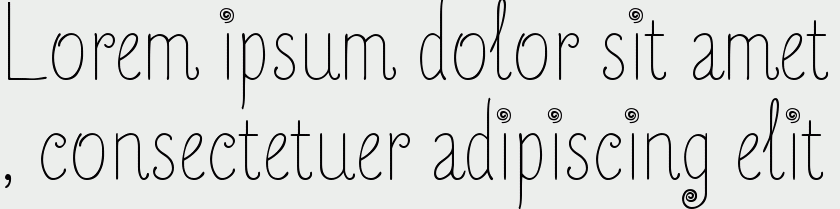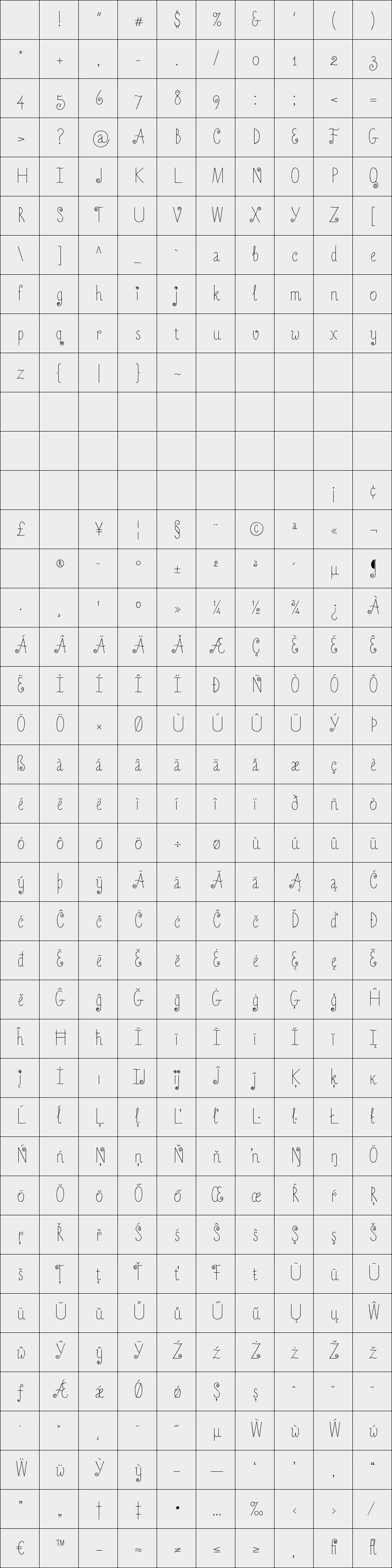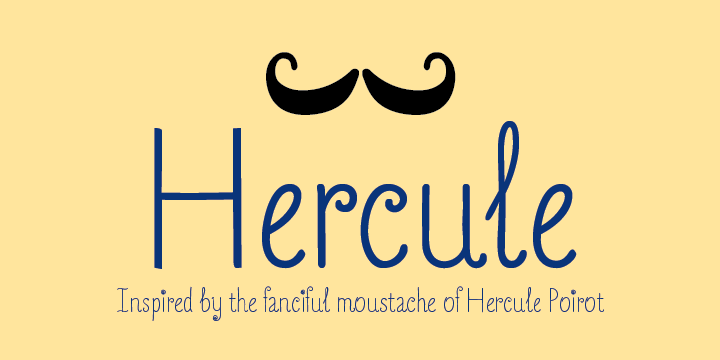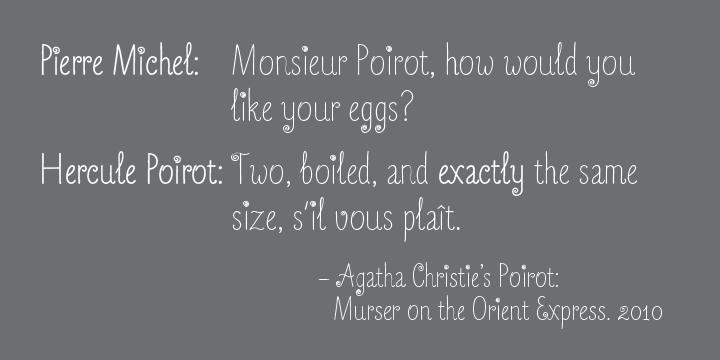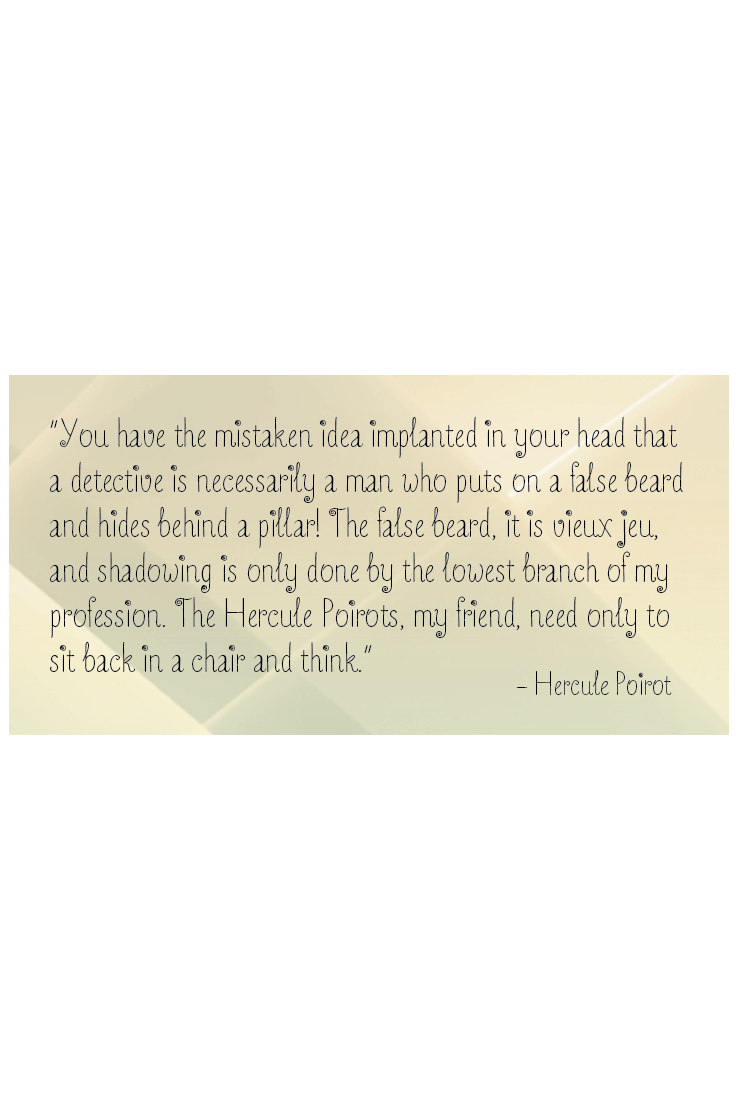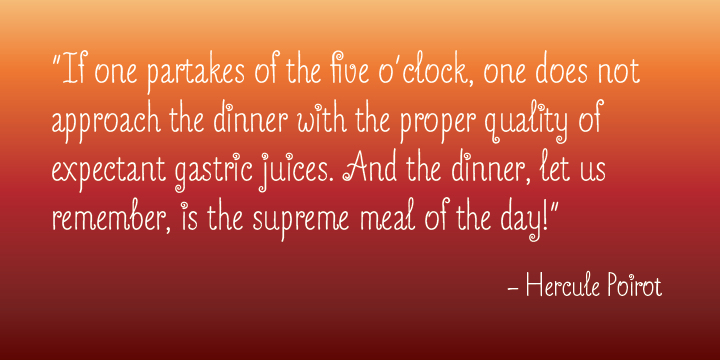
Hercule
/ Hercule Light
Hercule is a decorative typeface family in two weights: Light and Medium. The inspiration for Hercule was the fanciful moustache of the great fictional detective Hercule Poirot. The typeface was created by hand.
Hercule is ideally suited for headlines, logotypes, decorative and display use.
Designer: Kate Brankin